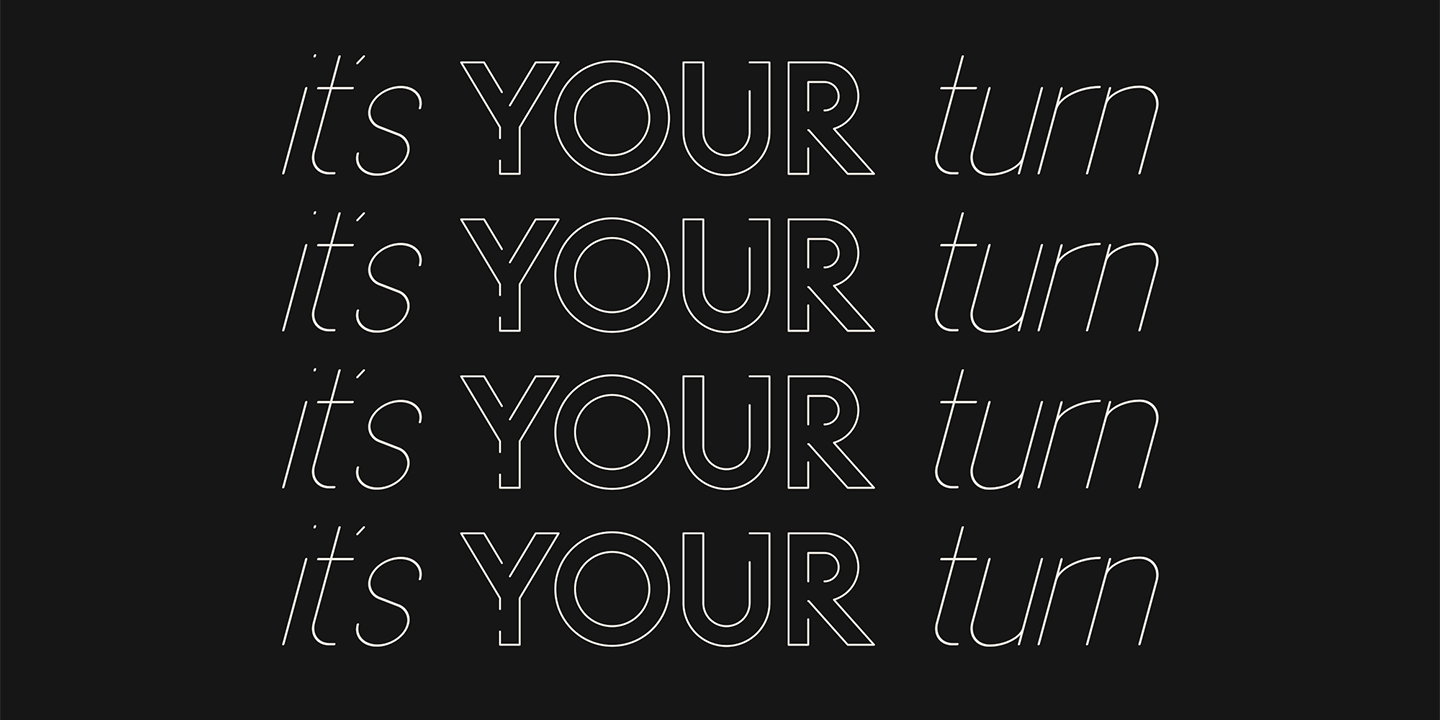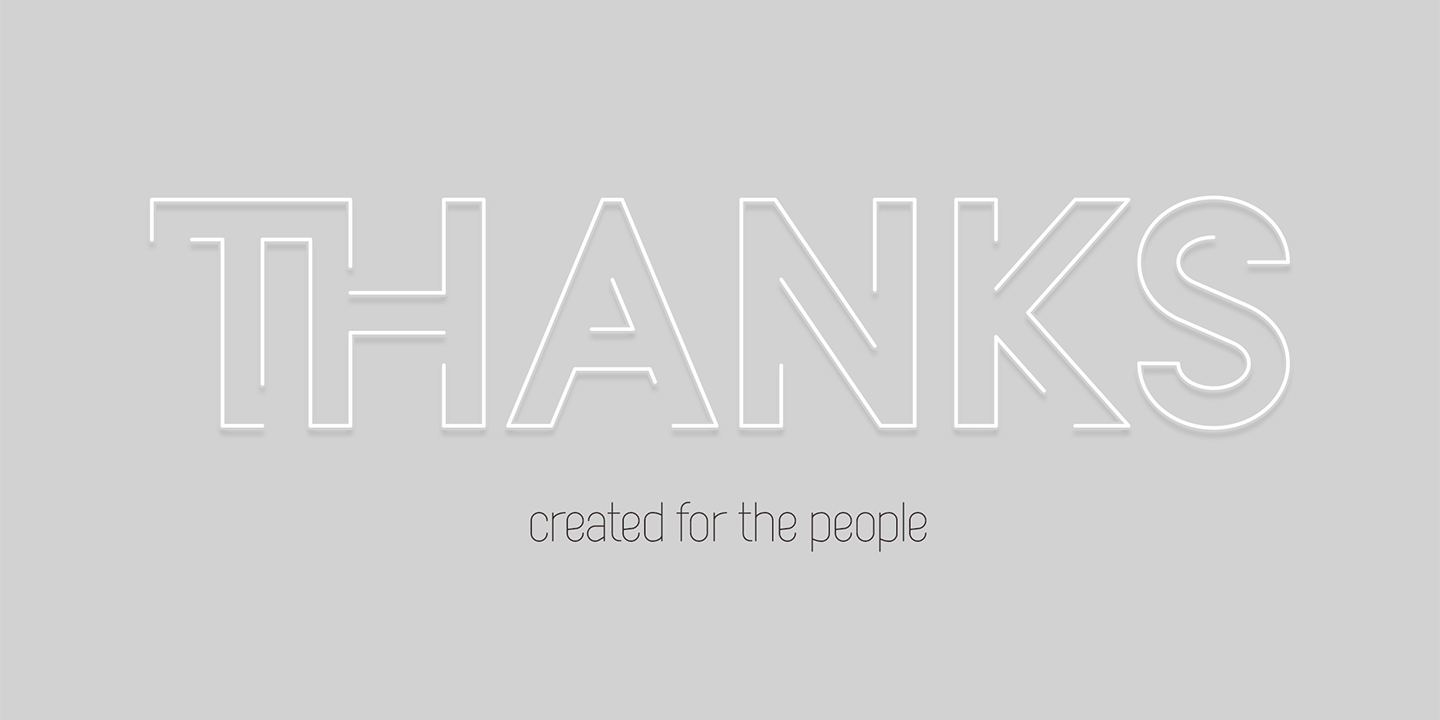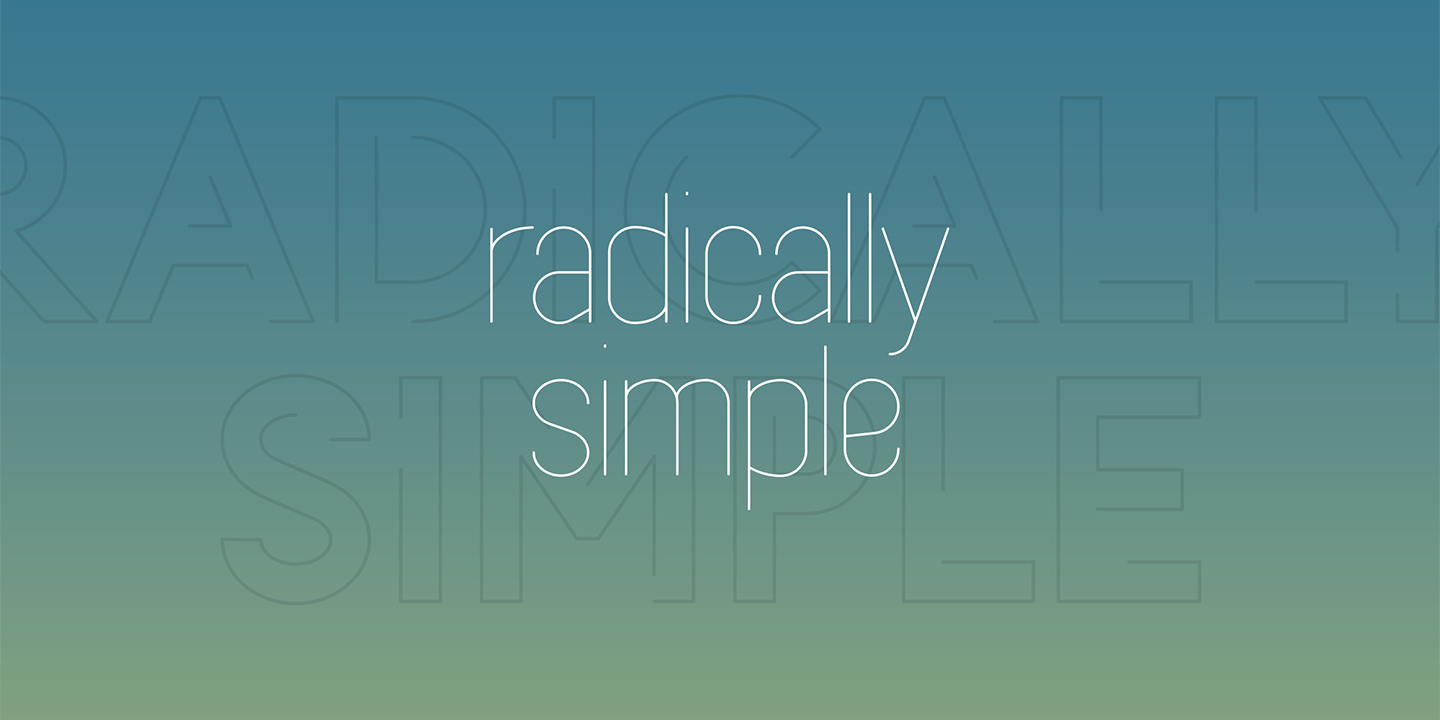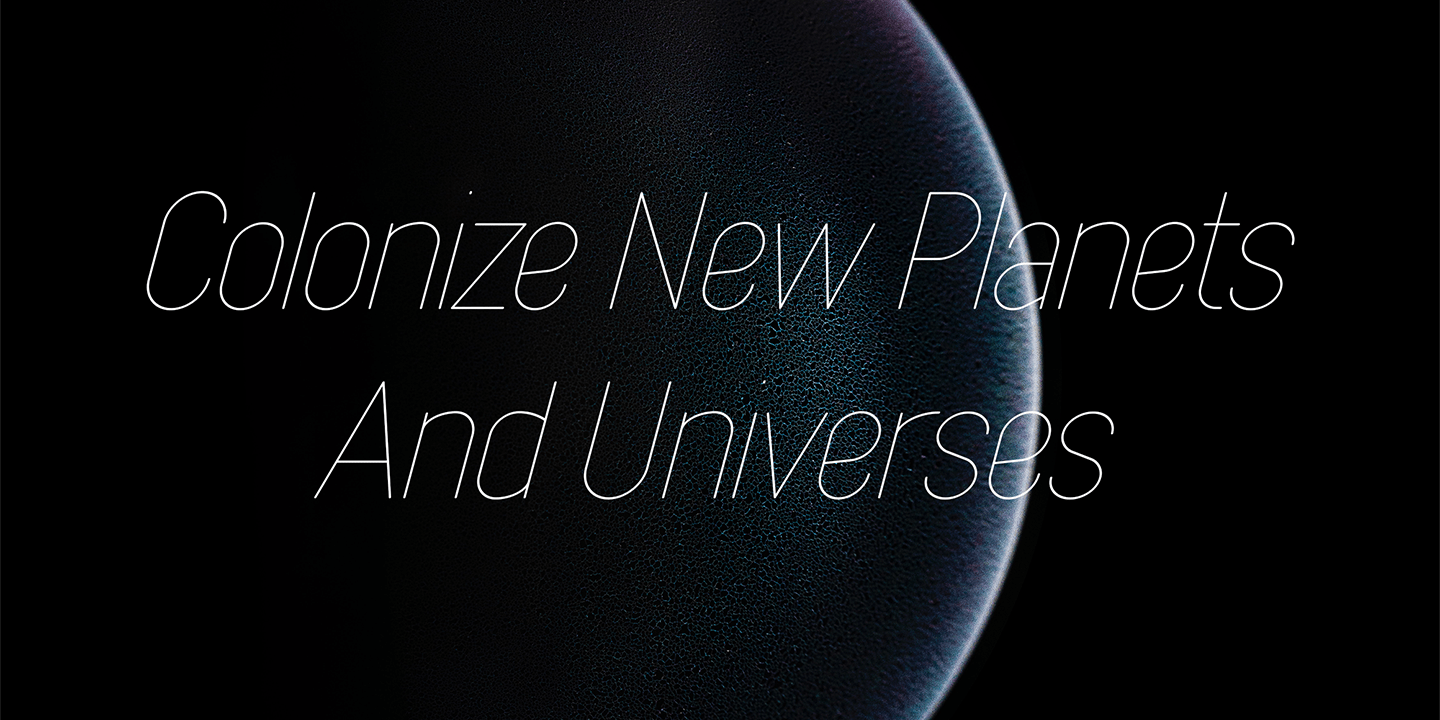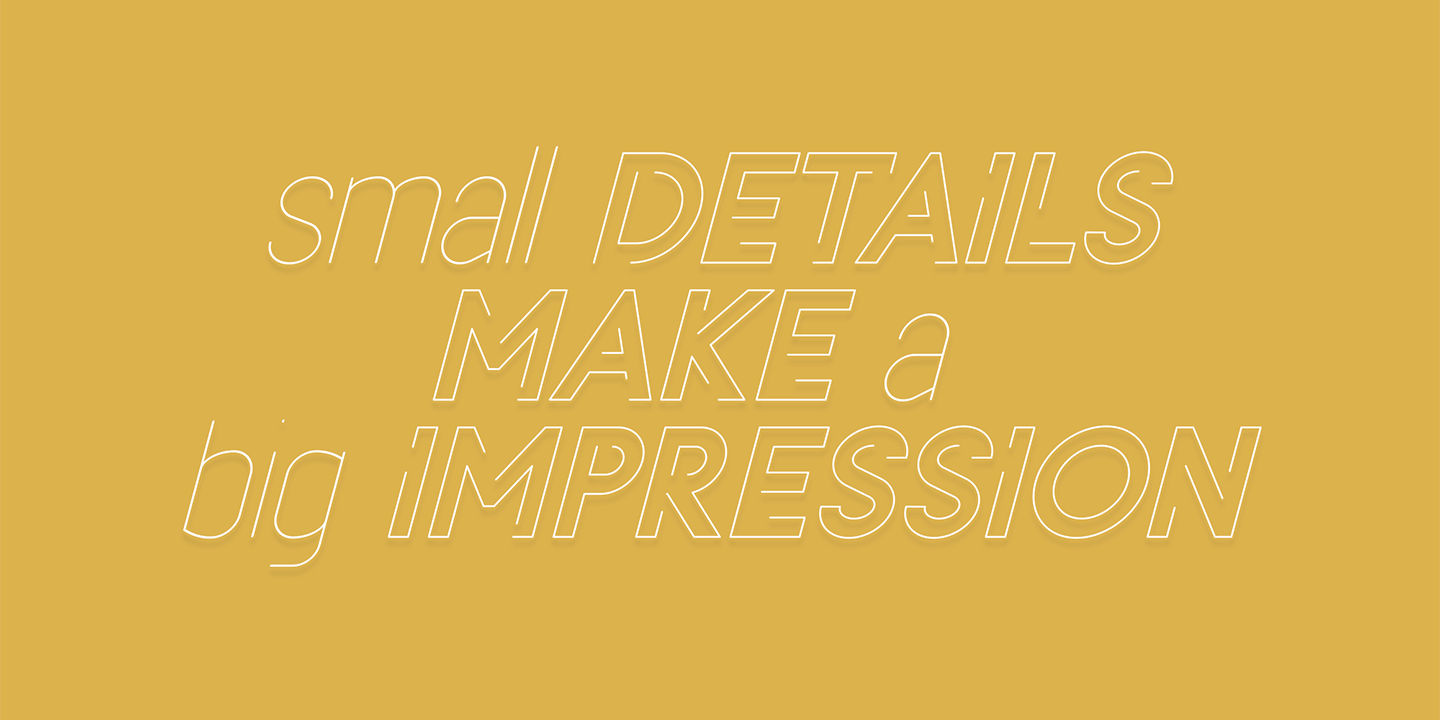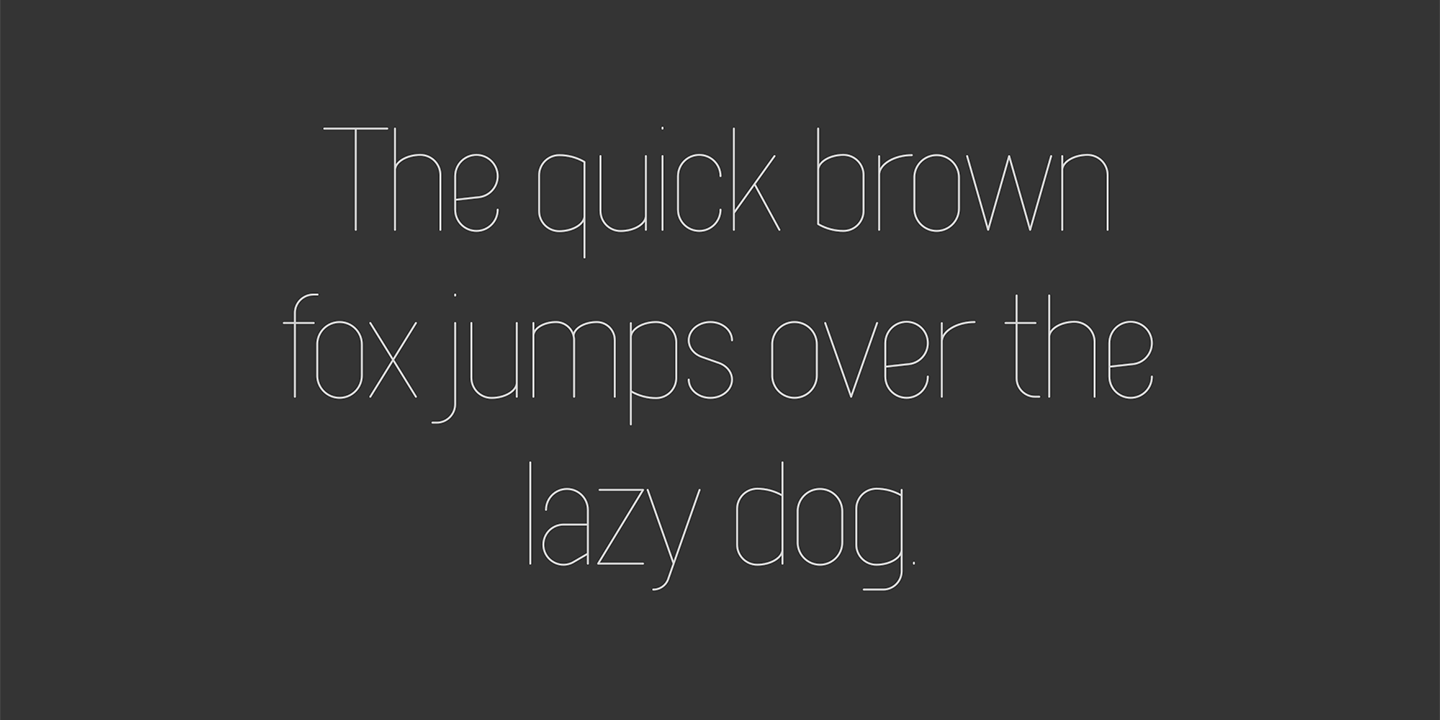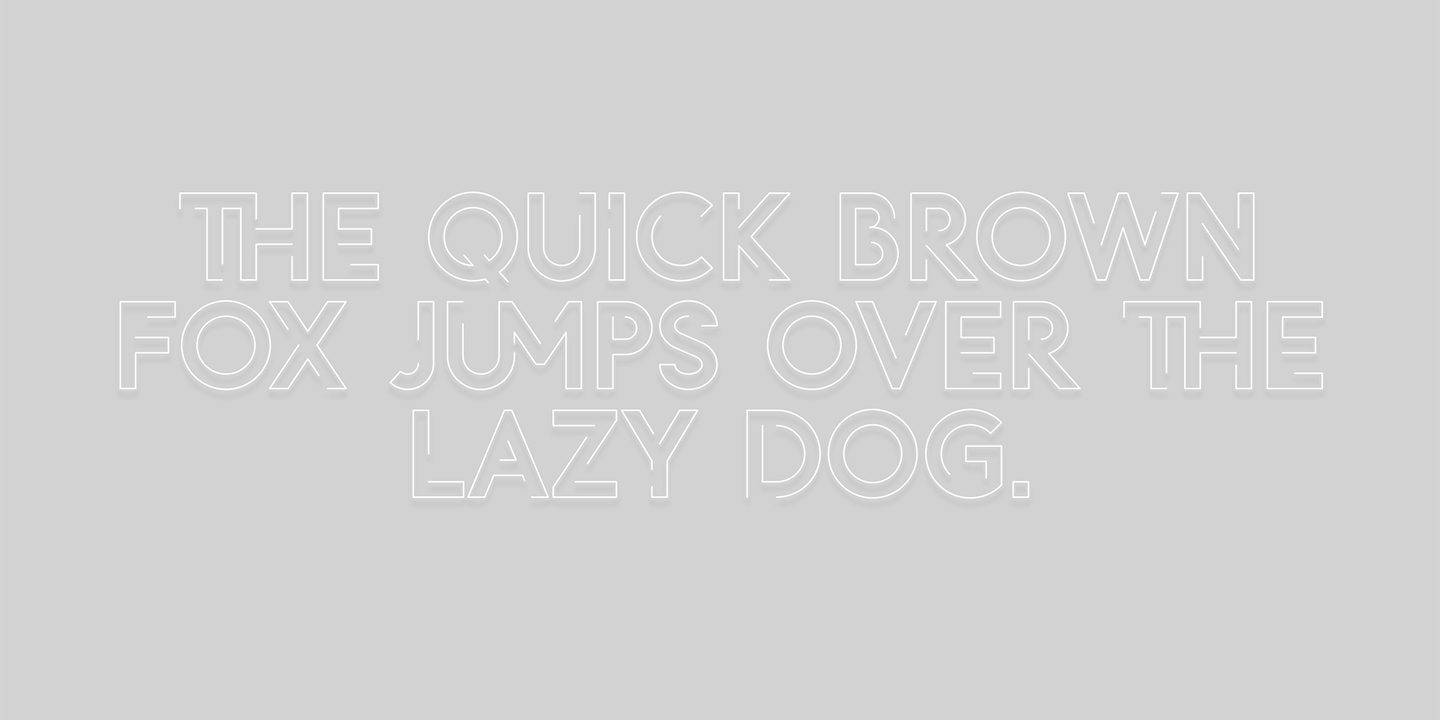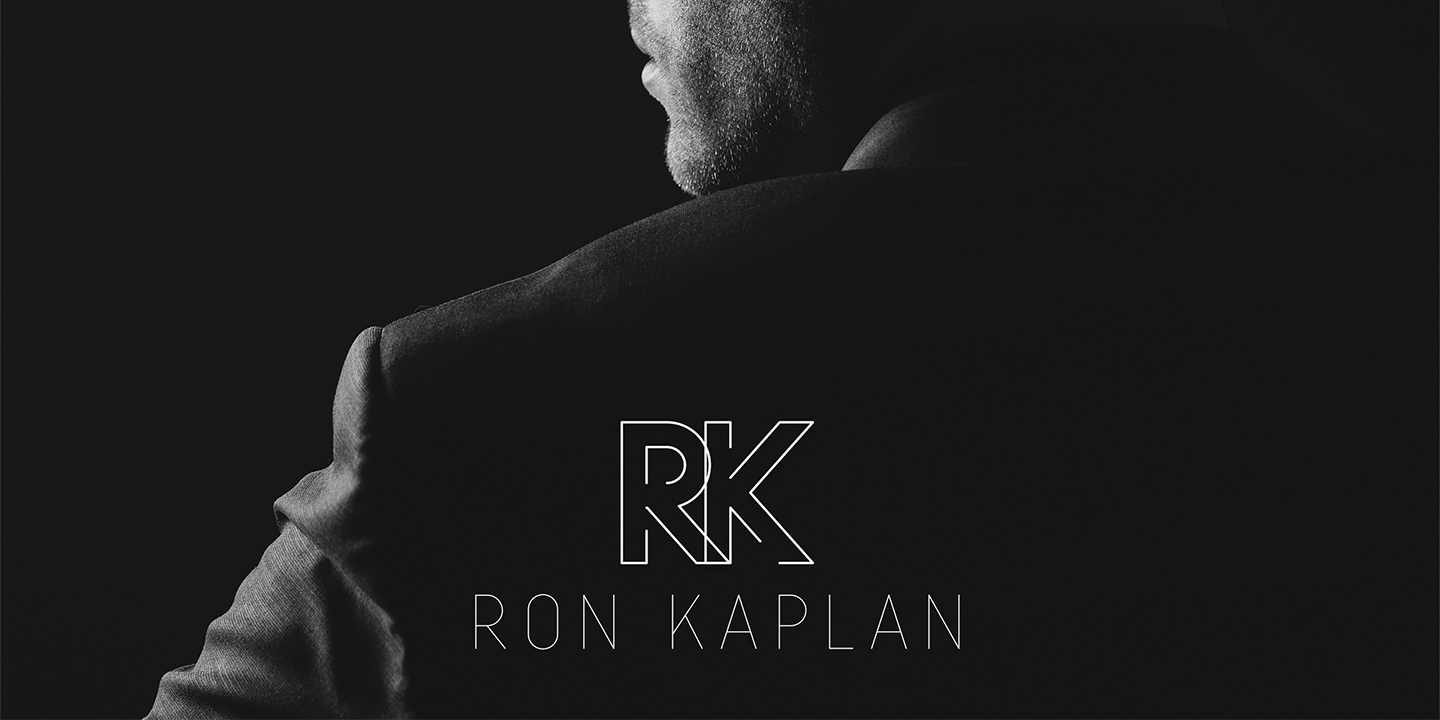
Azora
About Azora
Introducing Azora typeface – 16 fonts Elevate Your Typography with Azora – The Futuristic and Casual Typeface with 16 Fonts, 87 Language Support and Ligature Glyphs for Unique Designs. Language Support : Afrikaans, Albanian, Asu, Basque,…